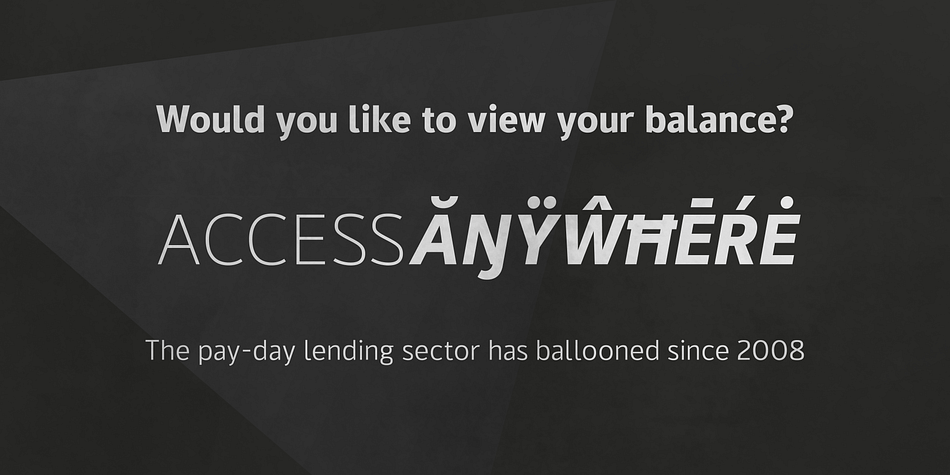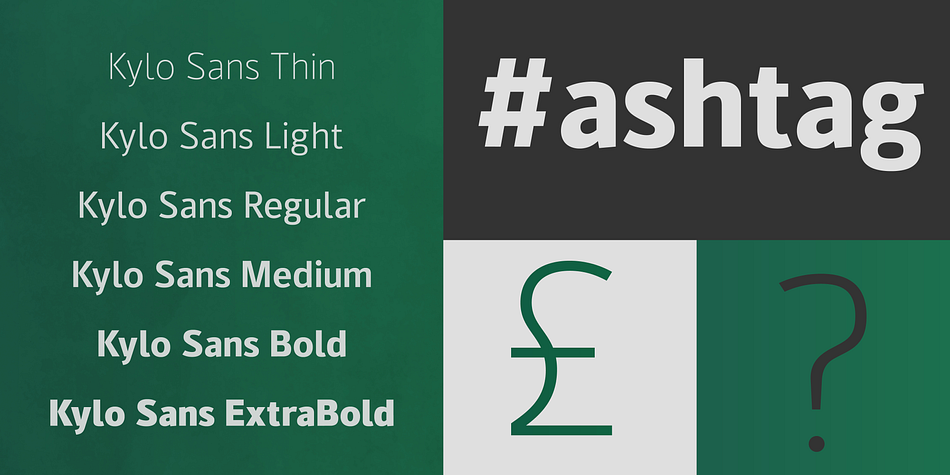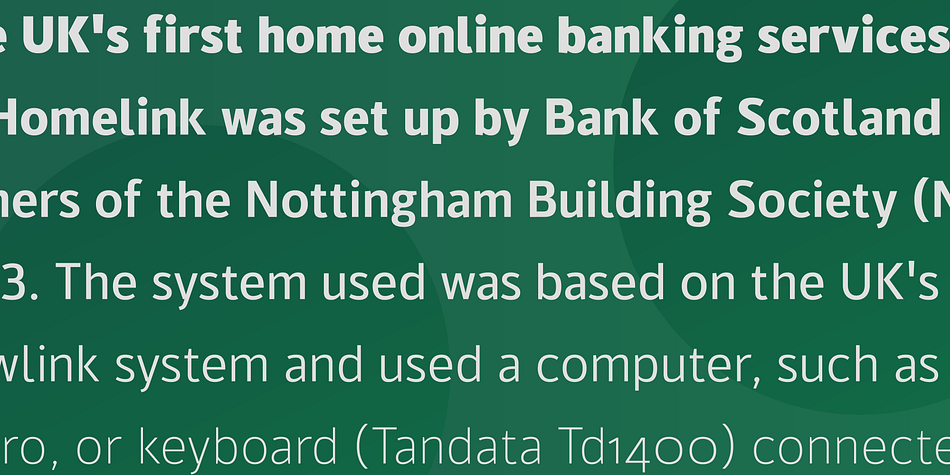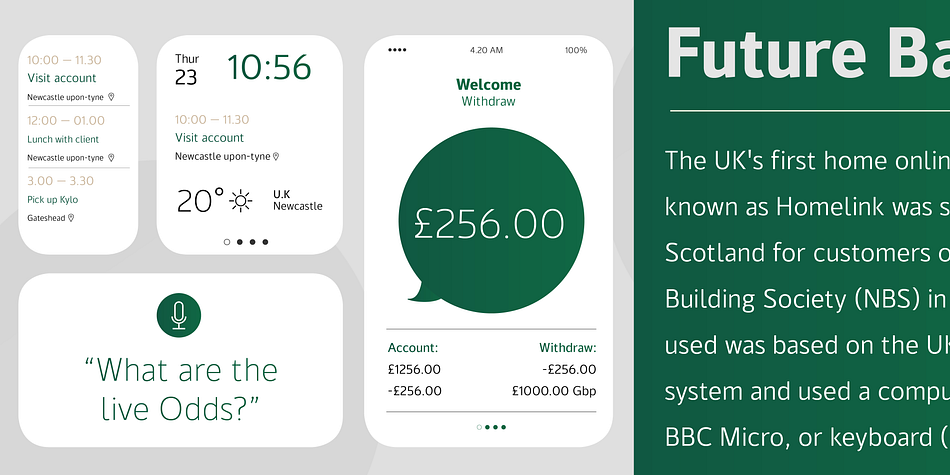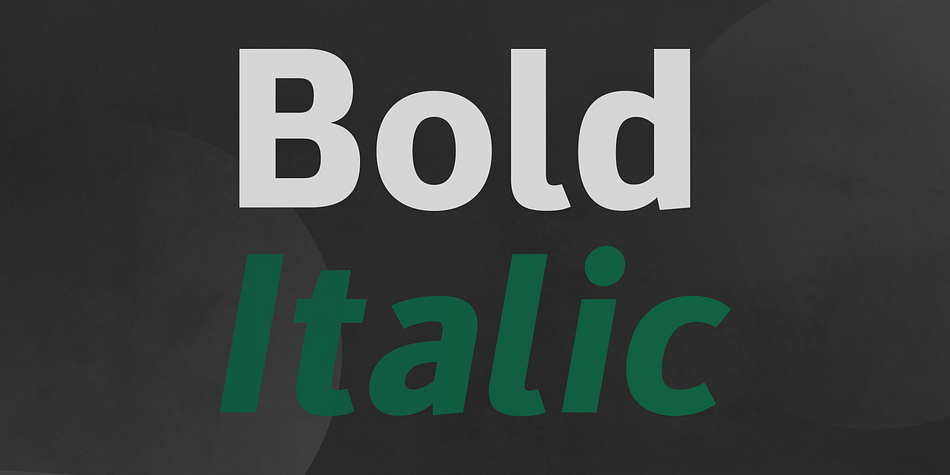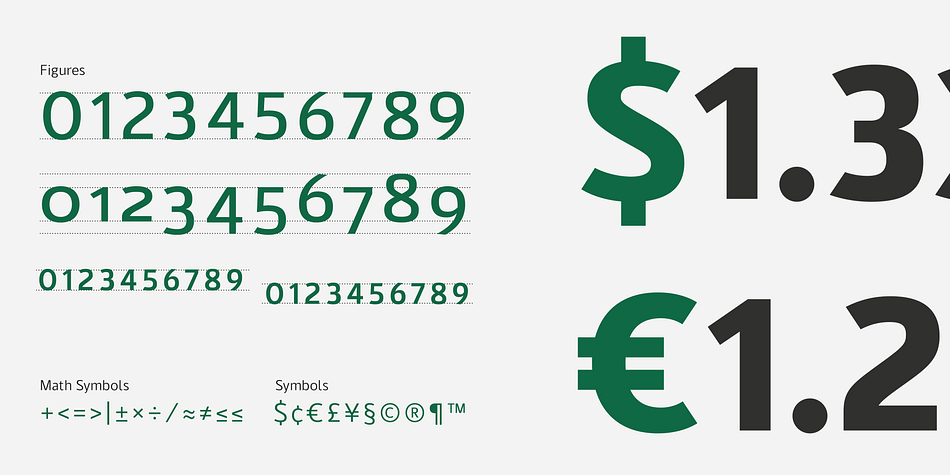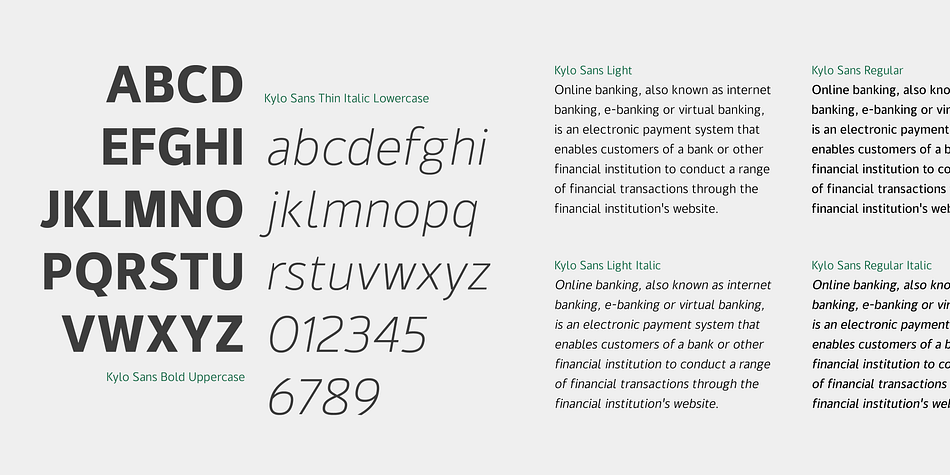
Designed by Jonathan Hill, Kylo Sans is a sans serif font family. This typeface has twelve styles and was published by The Northern Block.
A carefully blended sans serif one part humanist, one part grotesque and a small dose of geometric. Kylo Sans takes the essence of three distinct forms to create a unique, readable typeface with an exact and understated personality.
Further, enhancements are made to the process with hand-eye adjustment to three master weights giving a greater range and quality of complex type layouts. Details include six weight with italics, over 440 characters, five variations of numerals, manually edited kerning and Opentype features.